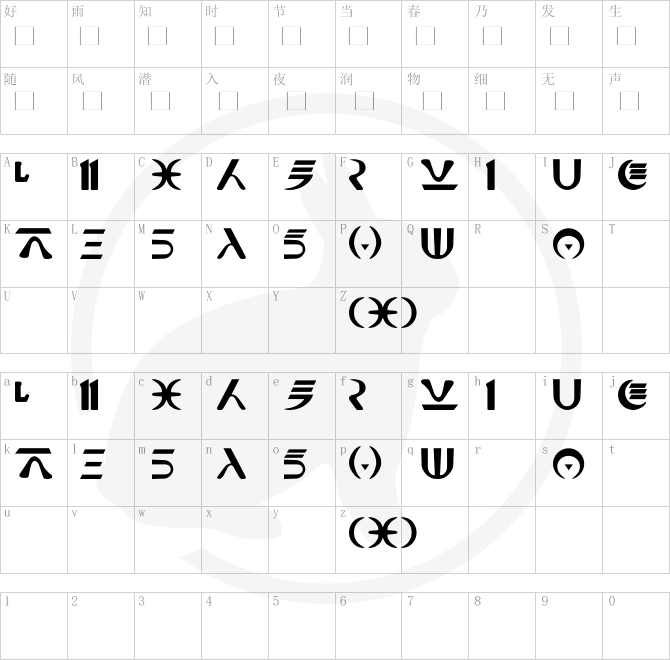
Naboo_Futhork.ttf is a very beautiful artistic font, Naboo_Futhork.ttf is widely used in the design and printing of various books and pictures,Naboo_Futhork.ttf has a strong visual impact,Naboo_Futhork.ttf is a commonly used font in newspapers, magazines and books, and is used in posters, e-commerce Poster design, store design, logo design, font design and other fields.Naboo_Futhork.